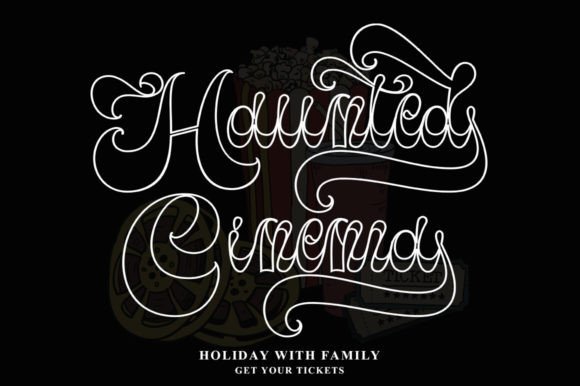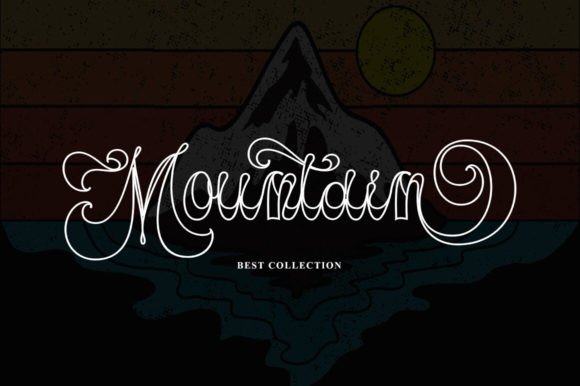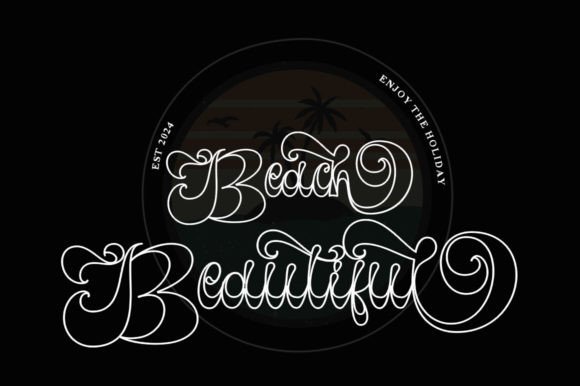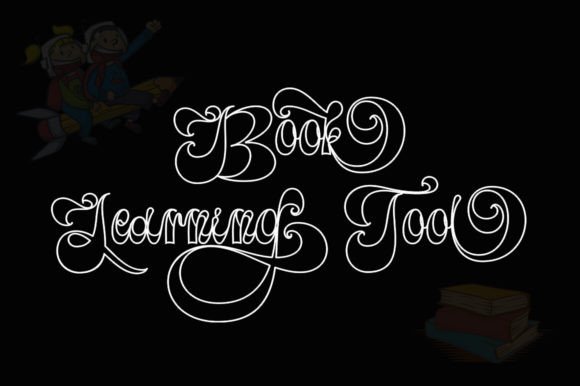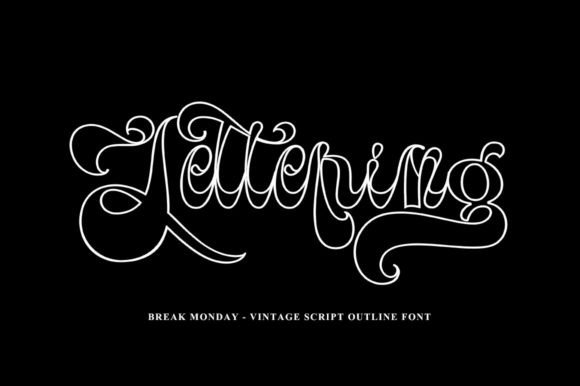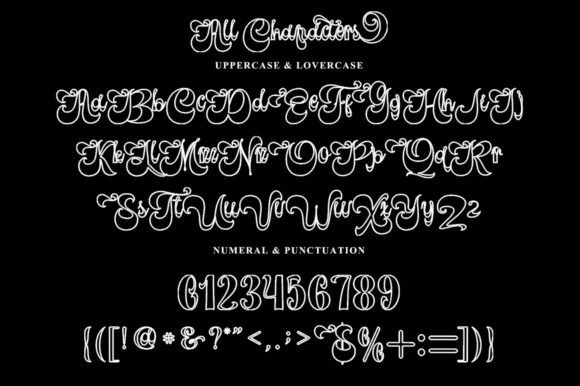
The Ultimate Guide to Break Monday Font: Elevate Your Designs with Elegance
I’ll never forget the time I was working on a wedding invitation project, and my client asked me to create something truly special. I spent hours scouring the internet for the perfect font, but nothing seemed quite right. That was until I stumbled upon Break Monday Outline, a beautiful handwritten font that instantly captured the elegance and whimsy I was looking for.
With its unique blend of fun and sophistication, Break Monday Outline quickly became my go-to font for a wide range of design projects. In this article, I’ll share my honest review of this stunning font, provide a practical guide on how to use it, and explore some similar fonts you might love.
An Honest Review of Break Monday Outline
- ✨ Unique and Timeless Style: Break Monday Outline boasts a radically different and timeless style that will instantly elevate your designs.
- ✅ Elegant and Whimsical: This font perfectly balances elegance and playfulness, making it ideal for wedding invitations, cards, and other special projects.
- 💻 PUA Encoded: With PUA encoding, you can easily access all the glyphs and swashes, giving you endless creative possibilities.
While Break Monday Outline is an amazing font, there are a few things to keep in mind:
- ⚠️ Limited Use in Body Text: Due to its elegant and cursive nature, Break Monday Outline might not be the best choice for lengthy body text.
- 🤔 Requires Some Practice to Master: With so many glyphs and swashes available, it might take some time to get familiar with the font’s full potential.
The Backstory of Break Monday Outline
Break Monday Outline was crafted with love and care by a talented font designer who aimed to create a unique, elegant, and whimsical font. Inspired by the beauty of handwritten scripts, this font is perfect for designers, crafters, and creative hobbyists looking to add a touch of sophistication to their projects.
| Author | TM Type |
Q: What is Break Monday Outline?
A: Break Monday Outline is a beautiful, elegant, and whimsical handwritten font perfect for a wide range of design projects.
Q: Is Break Monday Outline PUA encoded?
A: Yes, Break Monday Outline is PUA encoded, making it easy to access all glyphs and swashes.